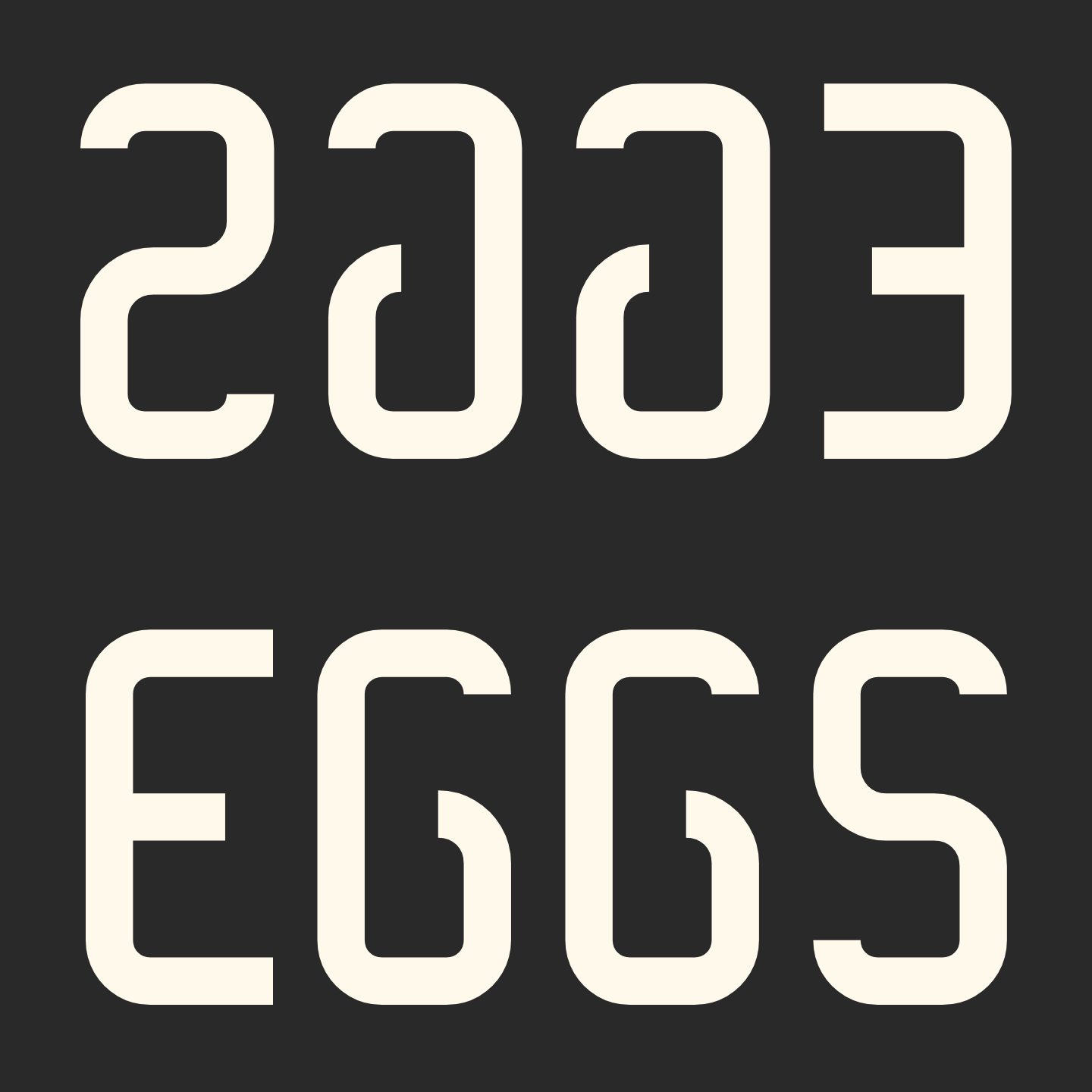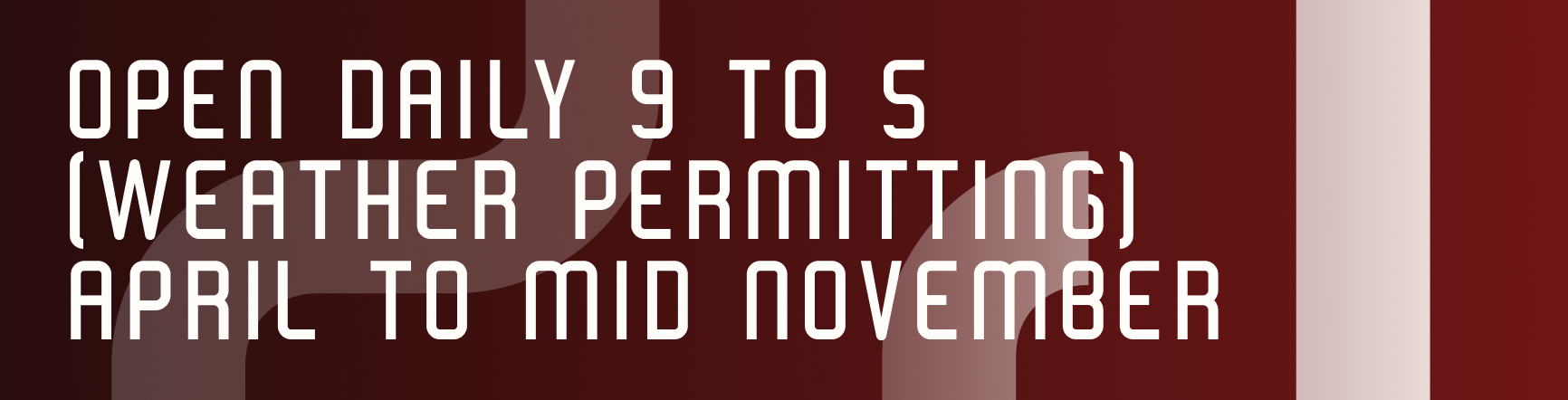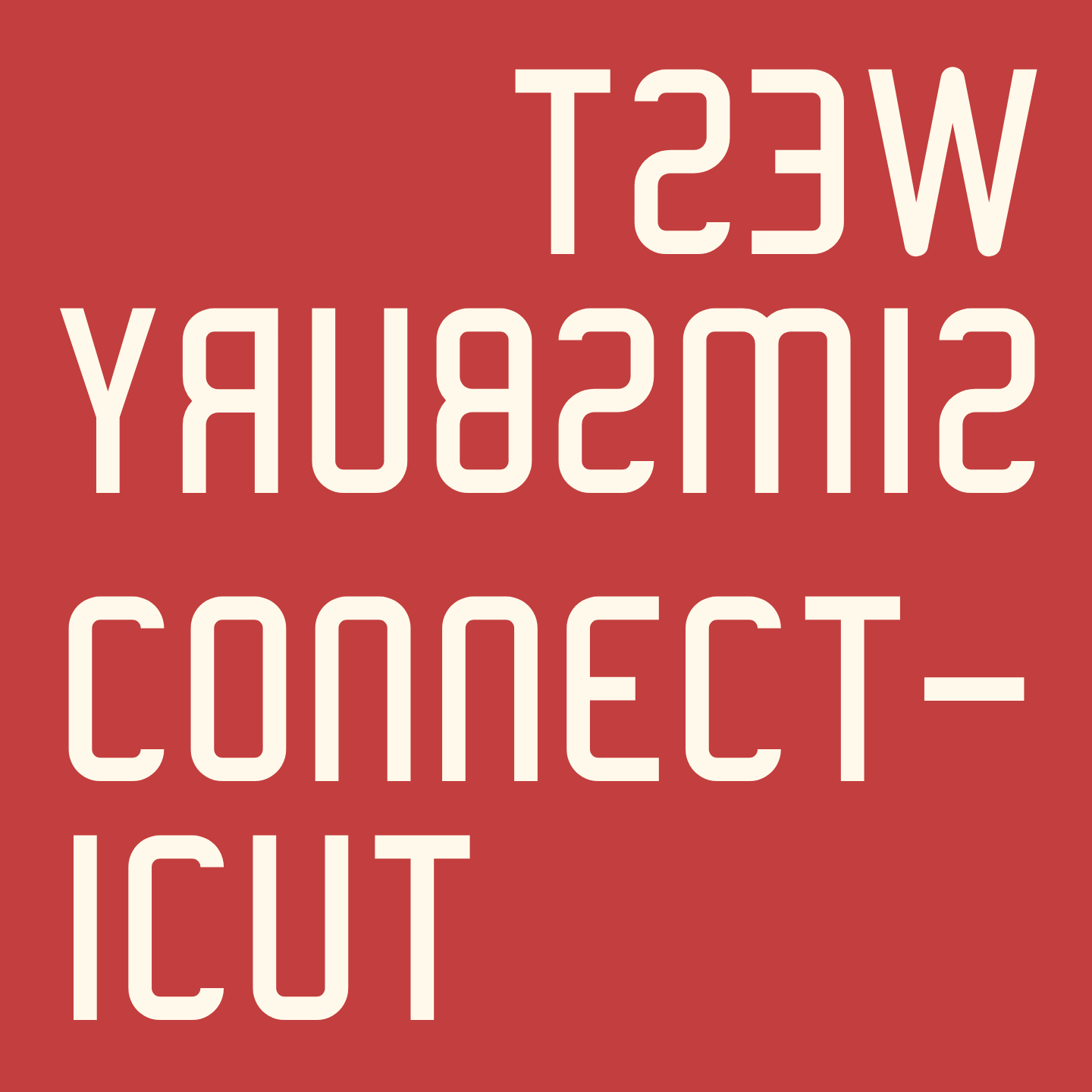
Flamig Farm in West Simsbury, Connecticut, is famous for their produce, friendly farm animals, as well as an immense artpiece on their barn that features an all caps “EGGS,” reversed. The conspicous, columnar, capitals persist due to the clever design choice to mirror the word. This allows it to be an artpiece, rather than a road sign with its own legal requirements.
This font pays homage to that locally historic design choice by including a reversed style to recreate the iconic look, alongside an unreversed style for normal text.